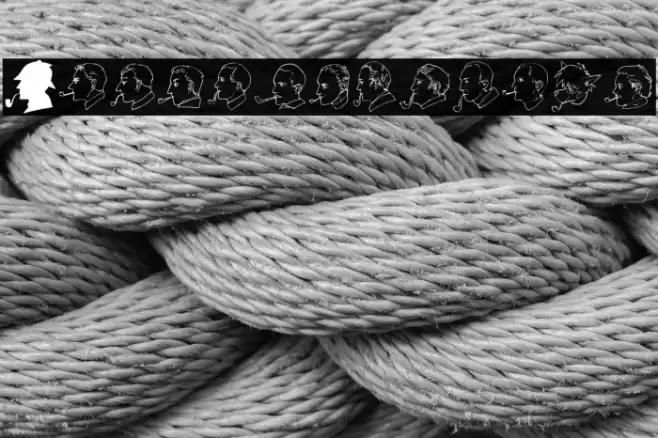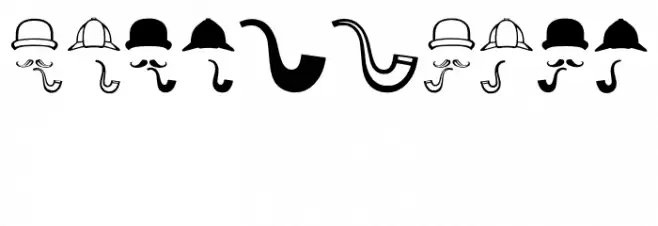
JMH Sherlock Dingbats Regular Font
JMH Sherlock Dingbats Regular Description
This is a decorative dingbat font featuring a variety of silhouettes and line drawings inspired by classic detective themes. The characters include profiles of individuals, iconic detective hats, pipes, and mustaches. The style is playful and thematic, capturing the essence of mystery and intrigue. The illustrations are detailed, with a mix of solid and outlined designs, providing a versatile range of options for creative projects. This font is perfect for adding a unique, thematic touch to designs that require a hint of classic detective flair.
A decorative dingbat font with detective-themed silhouettes and illustrations from Dingbats fonts.
- Proposed Projects: Ideal for themed party invitations, mystery novels, escape room branding, or any project requiring a detective or vintage mystery aesthetic.
- Use Case: Logos, Themed designs, Invitations